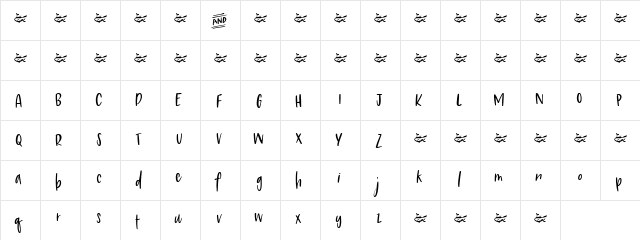
Fishfingers and Chips Demo Regular
| Designer | Nicky Laatz |
Design Context for Fishfingers and Chips Demo Typeface
Fishfingers and Chips Demo is a composed and adaptable typeface that performs quietly and consistently across a wide range of design contexts.